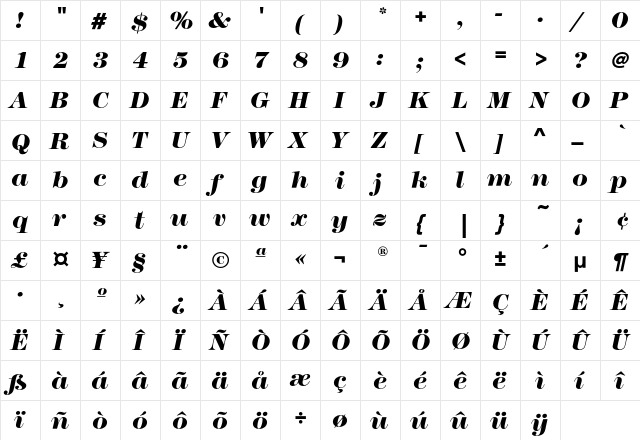
ModernNo216EF HeavyItalic
Design Context for ModernNo216EF Typeface
ModernNo216EF takes a measured approach to typography — its balanced proportions and neutral character make it a reliable workhorse for both digital and print work. The slanted form adds forward momentum and visual energy.
Pro Tip: Use ModernNo216EF for emphasis, pull quotes, and subheadings where its slanted energy can add rhythm to the layout.